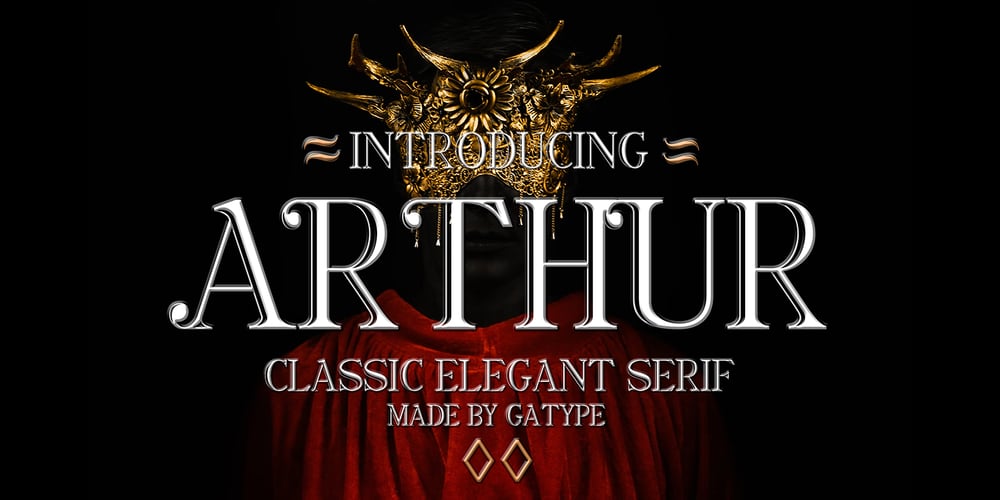
Arthur Serif Font Family was designed by khaidir and published by Gatype. Arthur Serif contains 1 styles and family package options. Arthur is an edgy modern serif font. The long, classic serifs make for a unique high-contrast typeface that’s all stylish. It appears regularly and boldly with lower and uppercase letters, numbers, punctuation marks plus multilingual letters. A must have for every modern graphic designer now!Features Include:Uppercase and lowercaseNumberPunctuation (OpenType Standard)Accents (Multilingual Characters)Alternative Style Ligatures and Style SetsWorks on PC and MacSimple installation